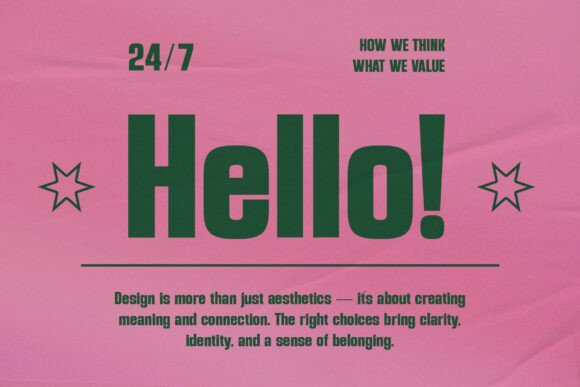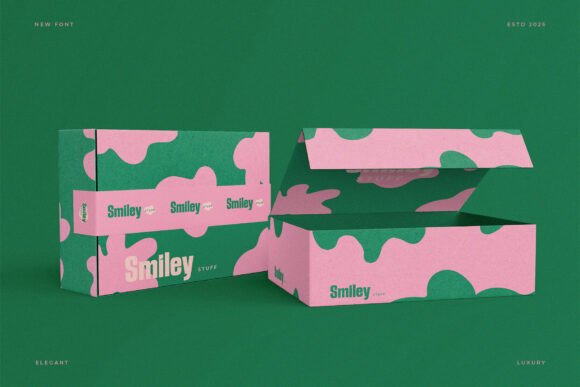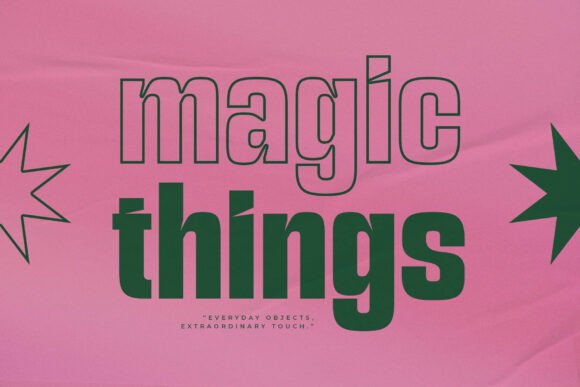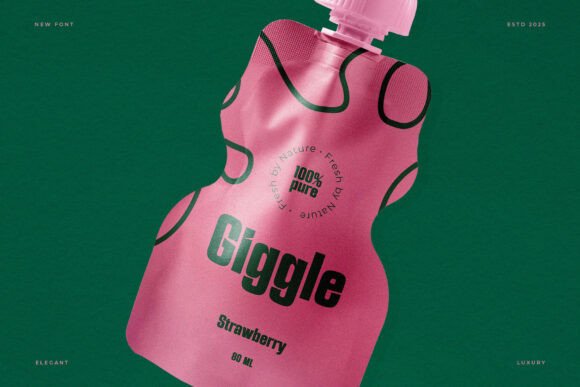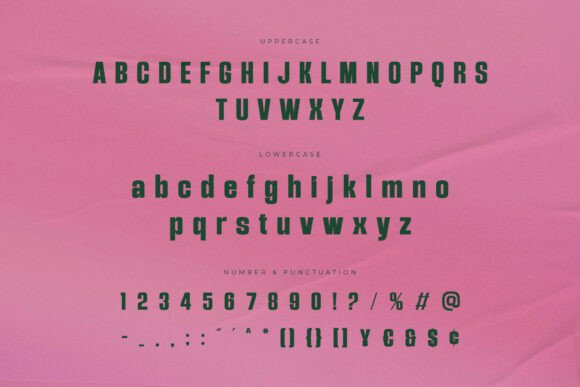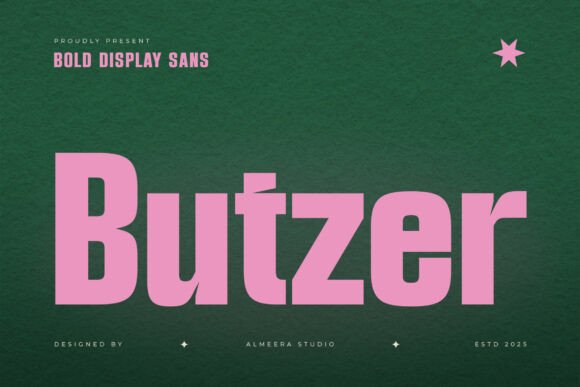
Introducing Butzer Font: The Bold Display Sans for Impactful Designs
In the world of typography, a good font can make all the difference in creating a lasting impression. For designers and crafters looking for a bold and eye-catching sans, Butzer font is an excellent choice. Designed to make a statement, Butzer is a strong geometric display font that brings a modern edge to any creative project.
The Power of Geometric Shapes
Butzer font boasts strong geometric shapes that give it a confident and modern look. Its clean lines and precise curves create a sense of elegance, making it perfect for headlines, posters, branding, packaging, and social media graphics. The font’s geometric shapes also ensure that it remains legible, even at larger sizes, making it ideal for billboards, signage, and other large-format applications.
Modern Proportions for Versatility
Butzer’s modern proportions are designed to provide a versatile style that works across both digital and print media. Whether you’re creating a website, social media graphics, or print materials, Butzer font adapts seamlessly to different mediums. Its balanced x-height and carefully crafted letterforms ensure that the font remains clear and readable, even on smaller screens.
Elegance with Impact
Butzer font balances elegance with impact, making it an excellent choice for designers who want to create a lasting impression. The font’s clean and minimalist design ensures that it doesn’t overwhelm the viewer, while its bold strokes and geometric shapes create a sense of drama and emphasis. This balance of elegance and impact makes Butzer font perfect for a wide range of applications, from luxury branding to editorial design.
Designed for Designers
Butzer font is designed specifically for designers who want clarity, confidence, and style in their typography. The font’s contemporary edge and versatile style make it an excellent choice for designers looking to elevate their creative projects. With Butzer, designers can create stunning visuals that capture the viewer’s attention and leave a lasting impression.
Applications for Butzer Font
Butzer font is perfect for a wide range of applications, including:
- Headlines and titles: Butzer’s bold strokes and geometric shapes make it ideal for headlines and titles that need to make a statement.
- Posters and flyers: Butzer font is perfect for posters and flyers that require a bold and eye-catching presence.
- Branding and packaging: Butzer’s clean and modern design makes it an excellent choice for branding and packaging applications.
- Social media graphics: Butzer font adapts seamlessly to different social media platforms, making it perfect for creating stunning visuals.
- Digital and print media: Butzer font works across both digital and print media, making it a versatile choice for designers.
Why Choose Butzer Font?
Butzer font offers a unique combination of style, versatility, and impact, making it an excellent choice for designers and crafters. Here are some reasons why you should choose Butzer font for your next project:
- Unique style: Butzer font boasts a unique and modern style that sets it apart from other sans fonts.
- Versatility: Butzer font works across both digital and print media, making it a versatile choice for designers.
- Impact: Butzer font’s bold strokes and geometric shapes create a sense of drama and emphasis, making it perfect for headlines and titles.
- Legibility: Butzer font’s clean lines and precise curves ensure that it remains legible, even at larger sizes.
In conclusion, Butzer font is a bold display sans that is perfect for designers and crafters looking to make a statement. With its strong geometric shapes, modern proportions, and versatile style, Butzer font is ideal for a wide range of applications, from headlines and posters to branding and packaging. Whether you’re a designer or crafter, Butzer font is an excellent choice for adding a contemporary edge to your creative projects.